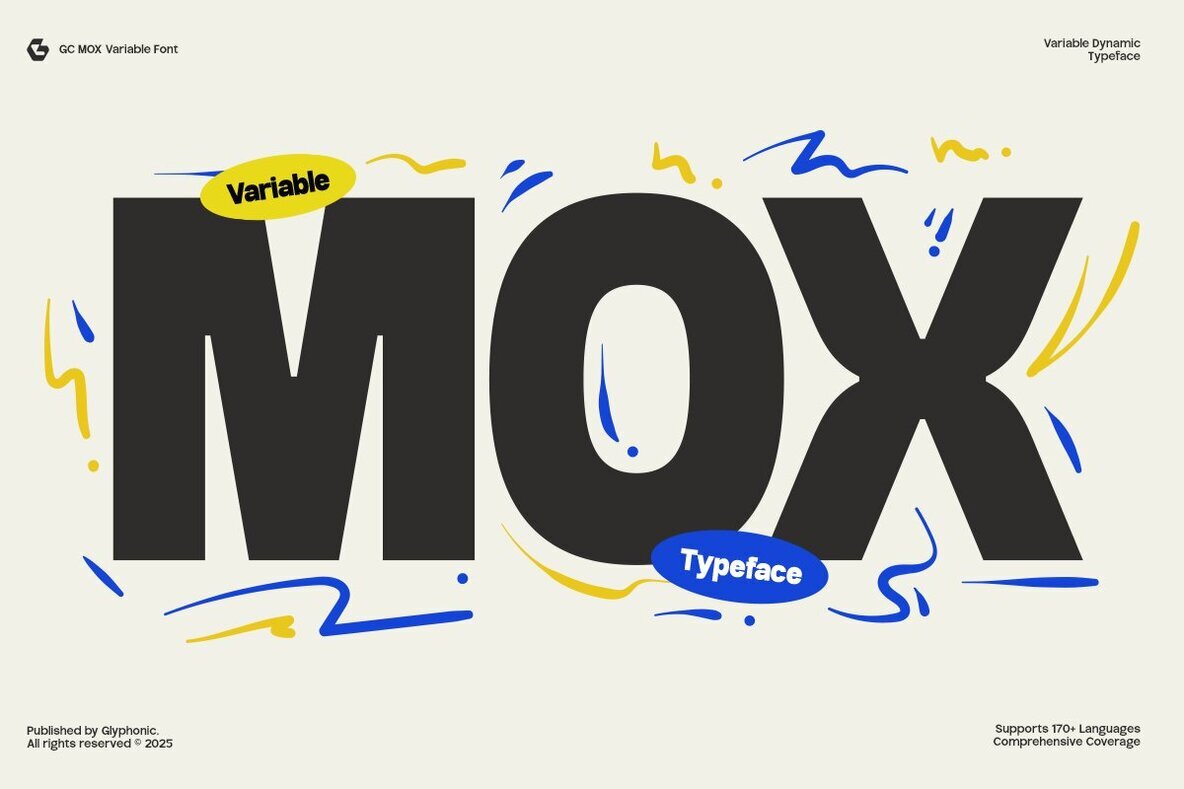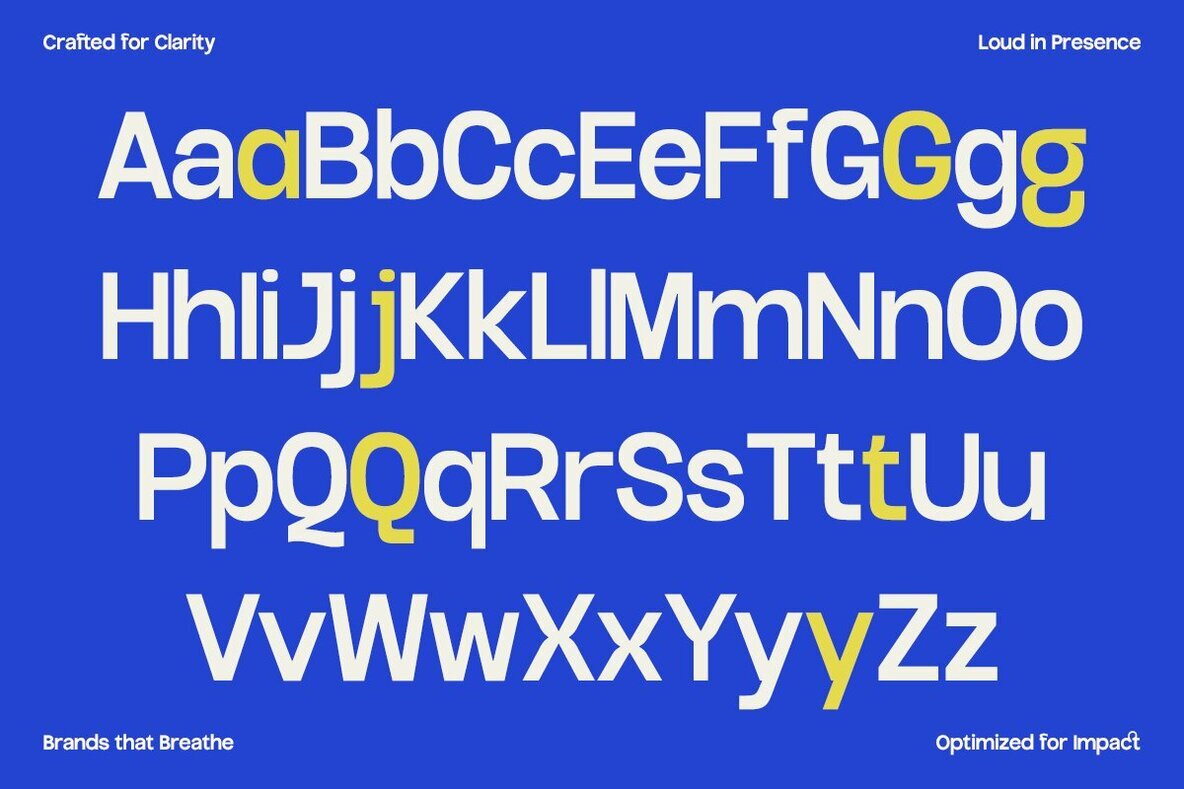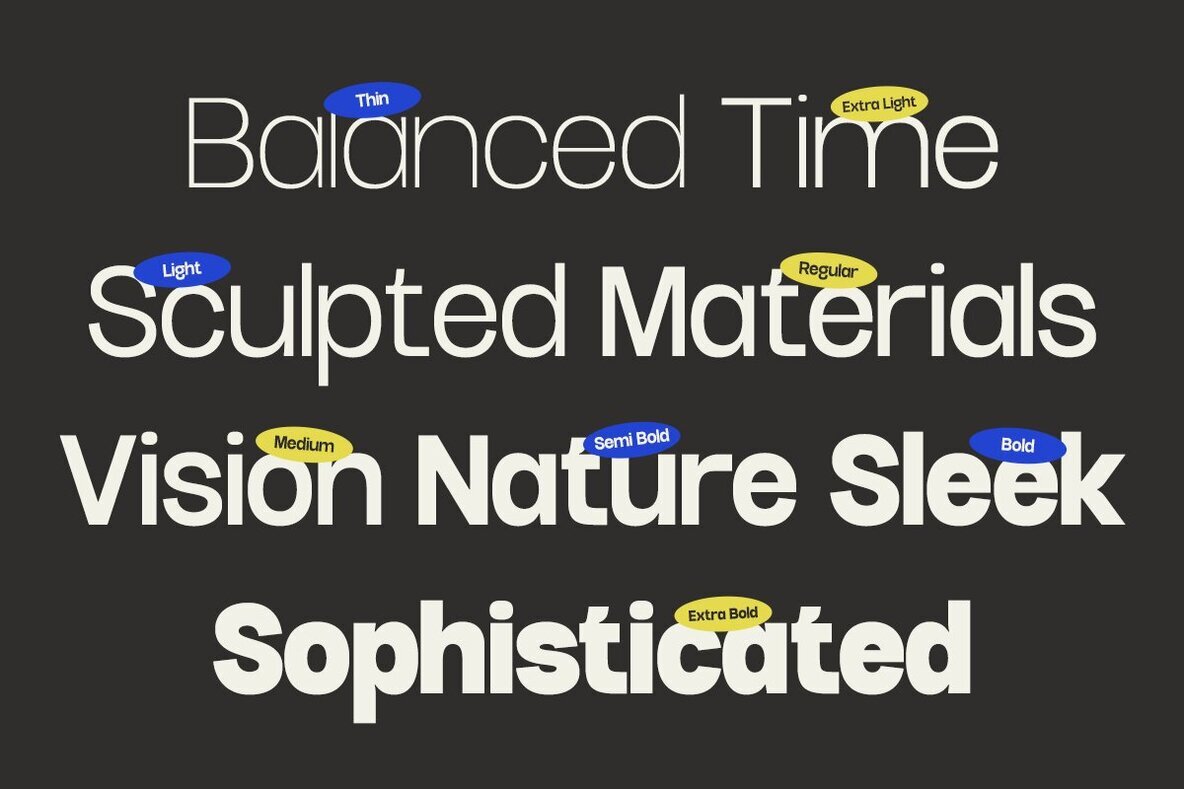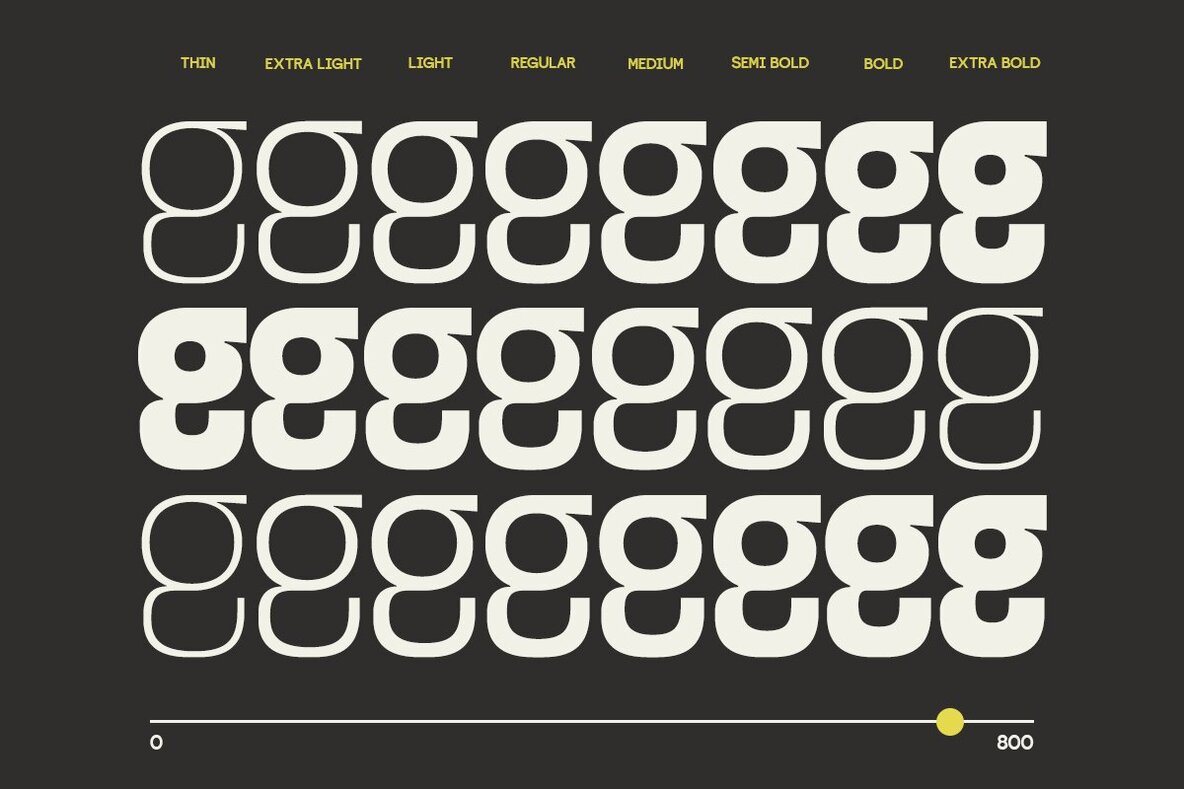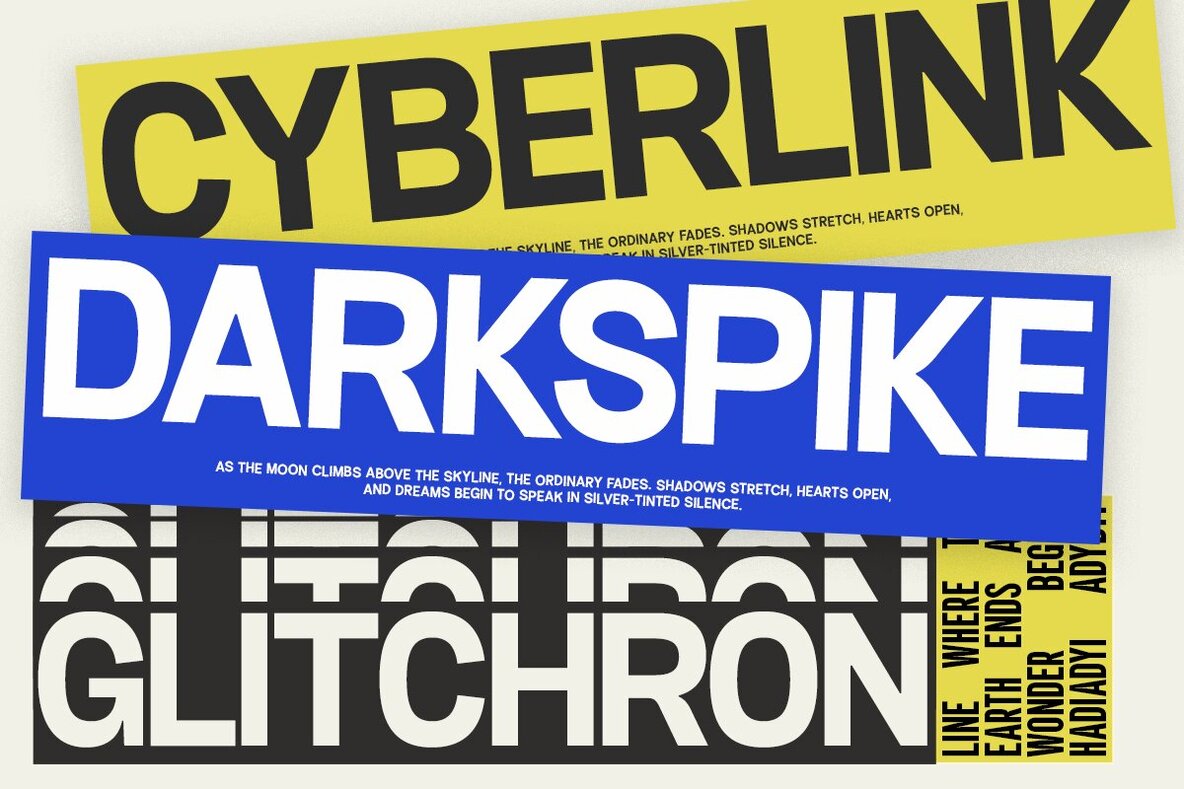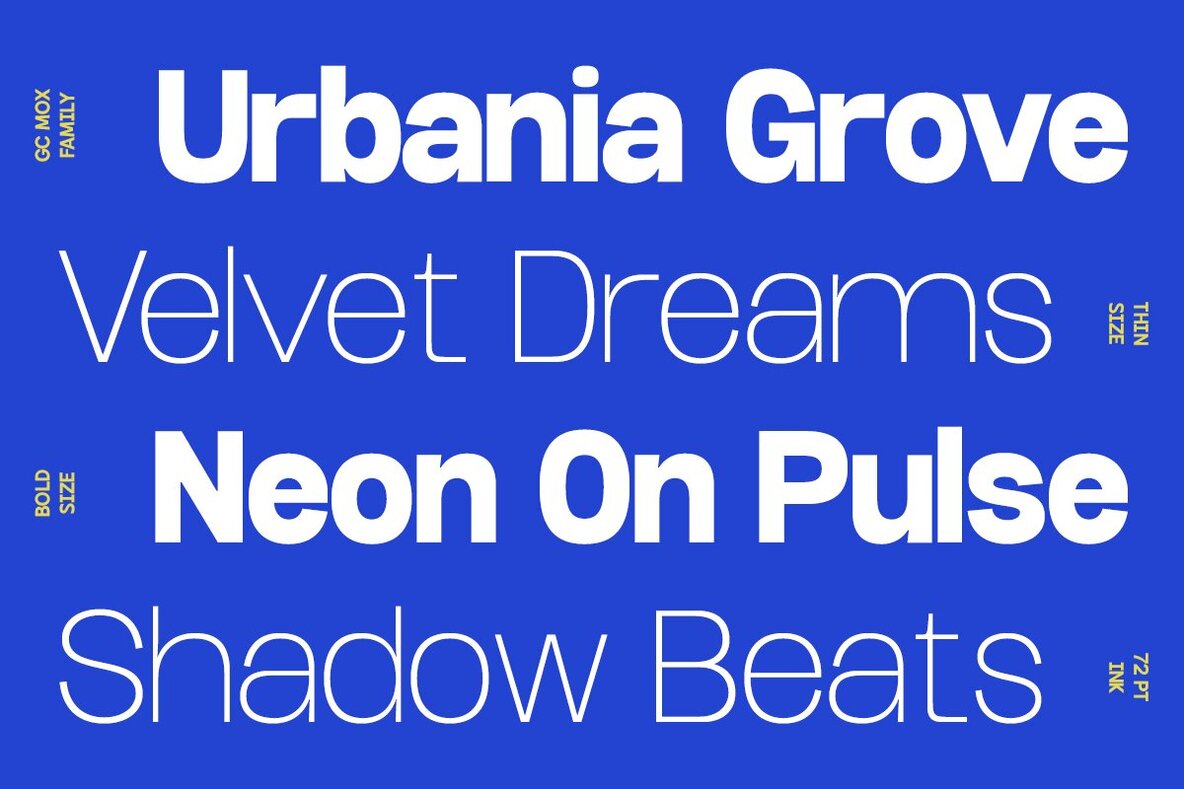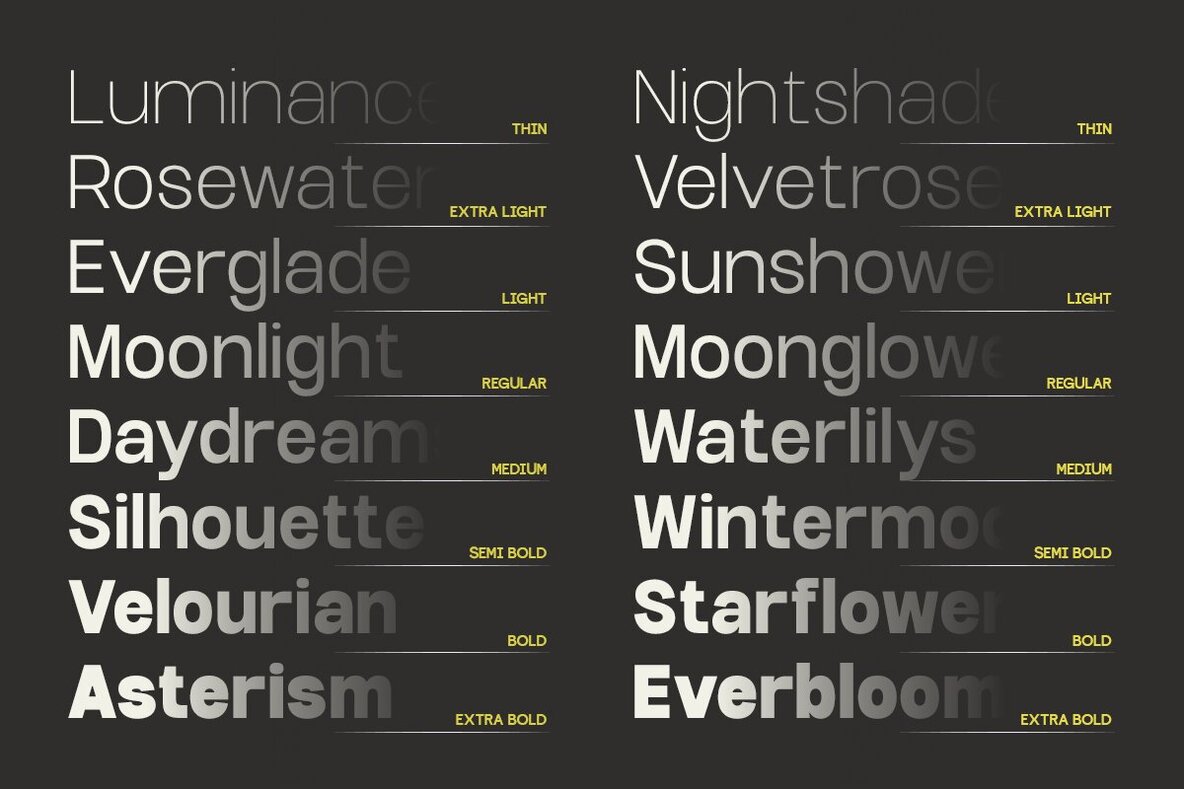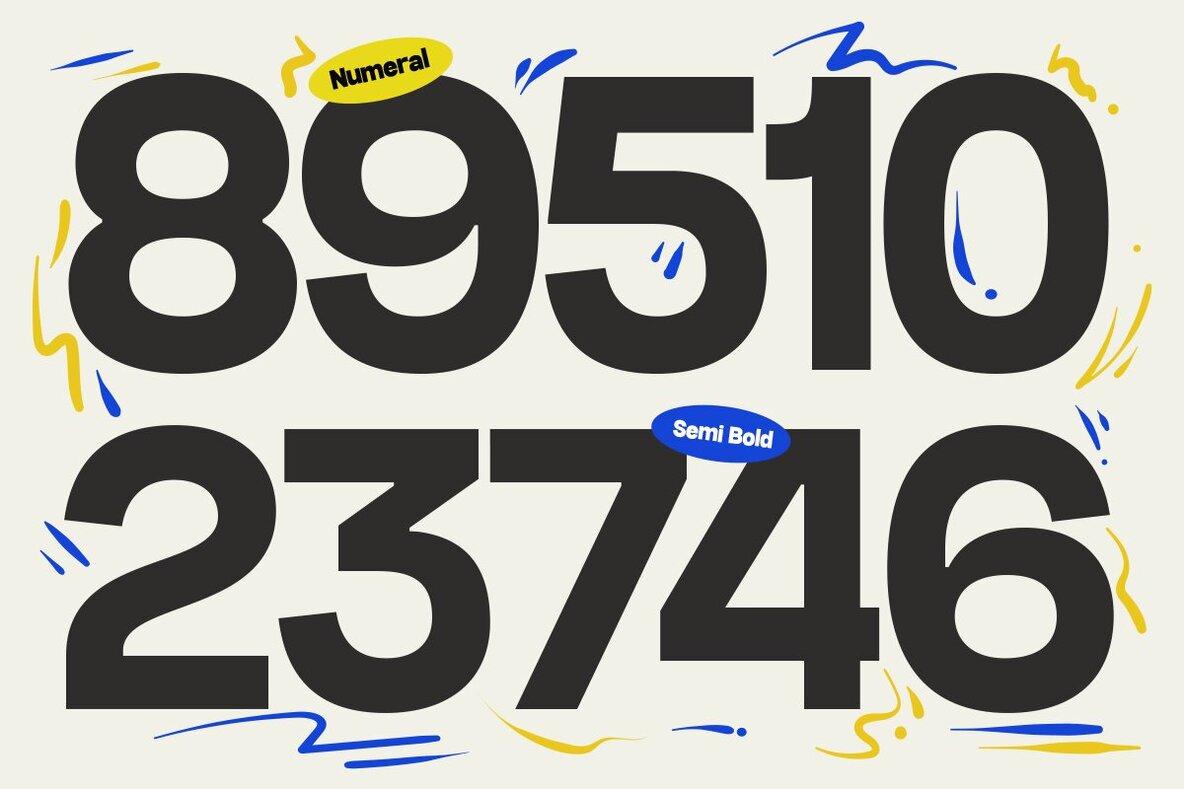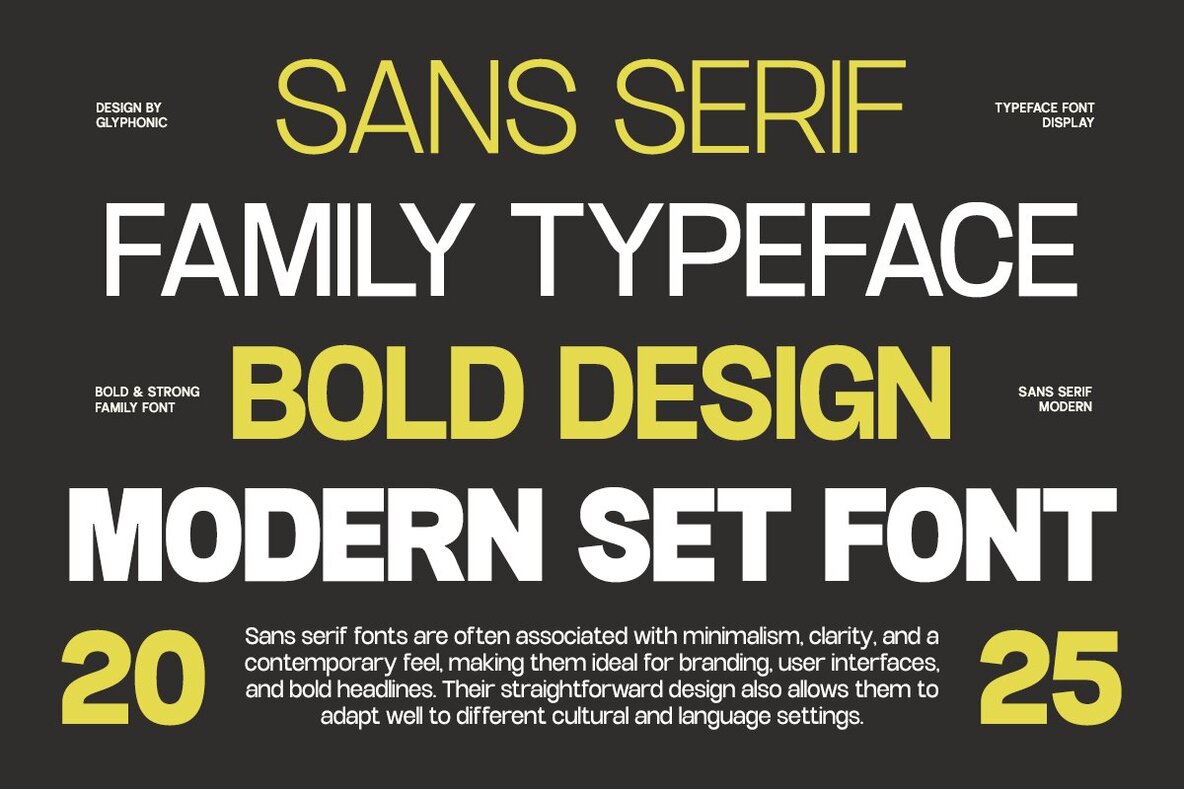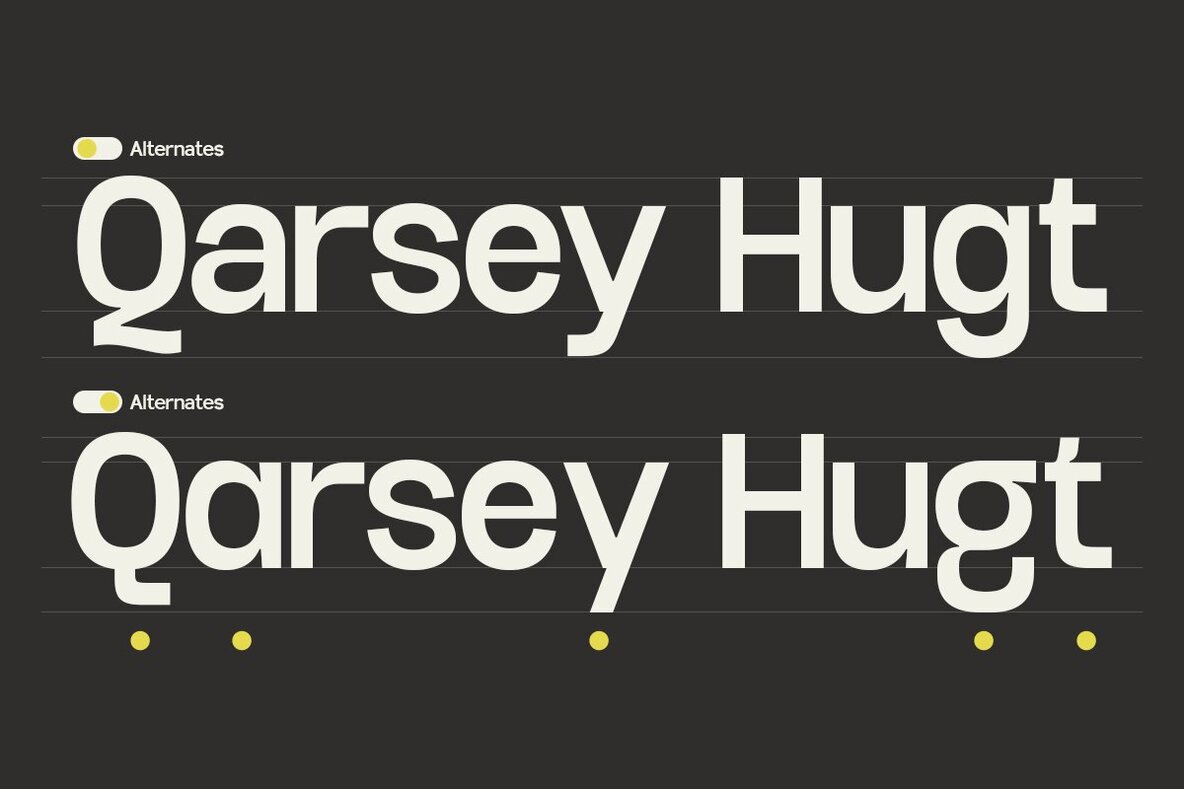
GC MOX Font
The GC MOX typeface commands attention with its bold variability and dynamic flair. Well-suited for an array of applications—including branding, posters, digital campaigns, and more—this font thrives in providing both standout and adaptable typography. Featuring strong geometric shapes, ample proportions, and adjustable variable styles, GC MOX empowers designers to mold typography in line with creative aims. Be it for impactful headlines or flexible layout solutions, this typeface infuses energy and versatility into every project. Features: GC MOX is crafted to imbue your designs with boldness, playfulness, and vigor.GC MOX: Dynamic Sans Typeface With Versatile Styles